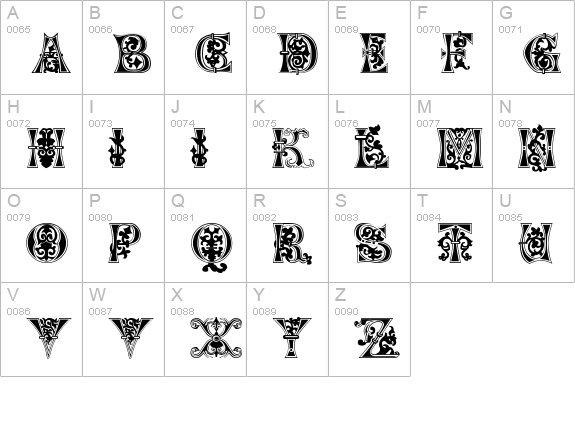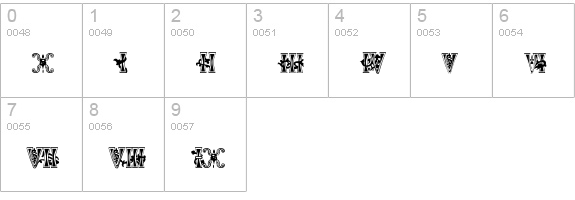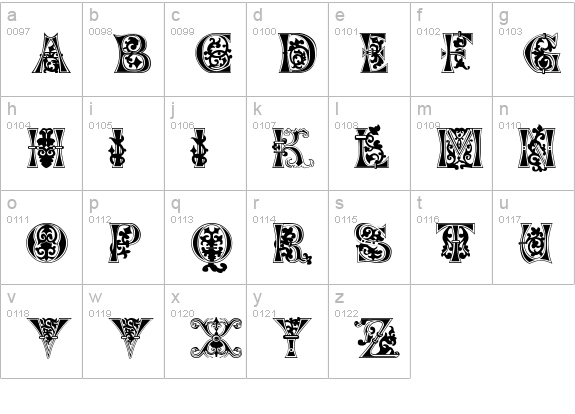
Floral Majuscules is a stunning 11th-century font that exudes elegance and sophistication. Its intricate floral motifs and ornate details make it a perfect choice for projects that require a touch of old-world charm. The majuscules, or uppercase letters, are beautifully crafted with delicate flourishes and botanical elements that add a sense of whimsy and grace to any design. This exquisite font is not only visually captivating but also versatile, making it suitable for a wide range of design applications. Whether used for invitations, branding, or decorative purposes, Floral Majuscules is sure to make a statement and leave a lasting impression. What's more, this remarkable font is freely available to download at FontsMarket.com, allowing designers and enthusiasts alike to access its beauty and charm with ease. Embrace the beauty of the past with Floral Majuscules and elevate your designs to new heights of sophistication and style.